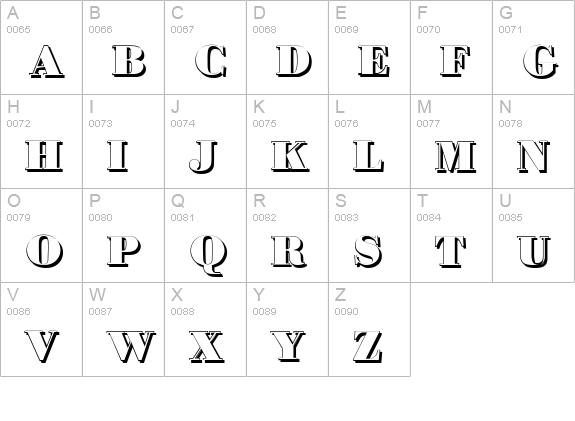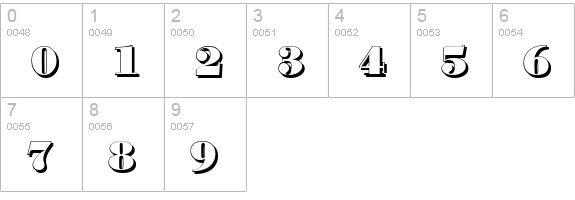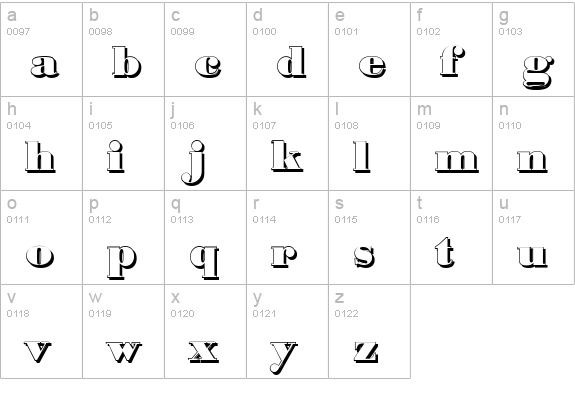
BodoniShadow-Black-Regular is a maximum-weight, dramatic variant in the BodoniShadow typeface family \xE2\x80\x94 well suited to maximum-impact headlines, posters, and packaging.
BodoniShadow-Black-Regular font is a stunning display typeface that exudes elegance and sophistication. Its sharp serifs and bold letterforms make it a perfect choice for creating eye-catching headlines, logos, and branding materials. This font commands attention with its strong presence and timeless appeal. The best part? BodoniShadow-Black-Regular font is completely free to download at FontsMarket.com. You can elevate your design projects with this high-quality typeface without having to spend a penny. Whether you're working on a poster, website, or print design, this font will add a touch of class and professionalism to your work. Don't miss out on the opportunity to enhance your designs with this striking font - download BodoniShadow-Black-Regular today and take your creativity to the next level!